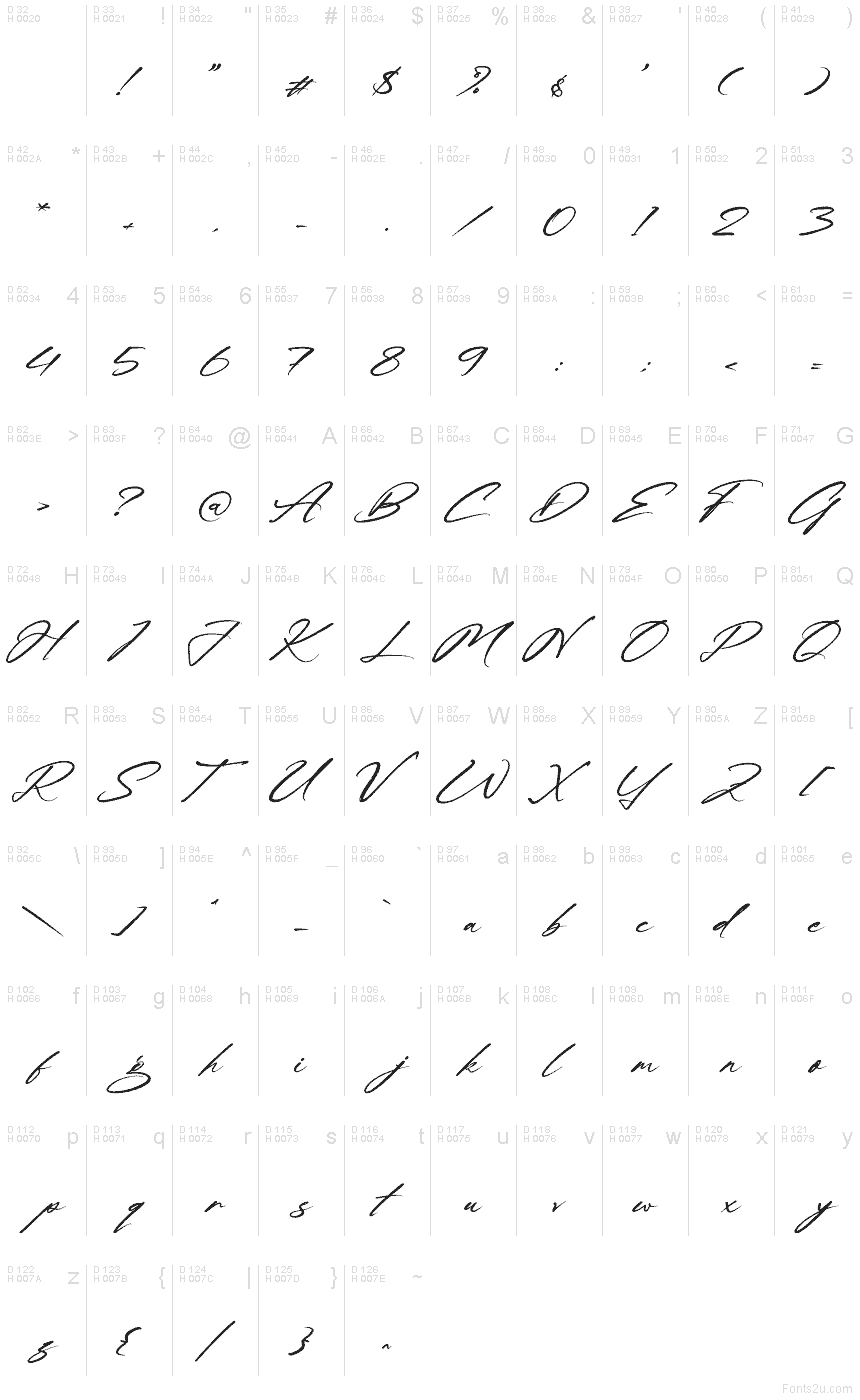
Nathgomy
Nathgomy font, designed by Letterena Studios, is a free handwritten font characterized by its light weight and condensed width. It is an expressive script typeface, naturally elegant and fluid with a signature-like quality. The modern signature gives it a sophisticated touch when used on branding or other creative identity projects.